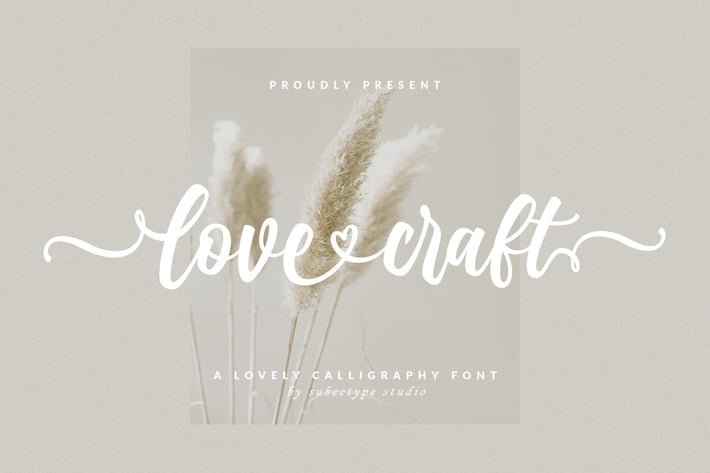
Love Craft - A Lovely Font
Love Craft is a Chic and Lovely Calligraphy font, described by an girly touch, perfect for your favorite projects.
Fall in love with its incredibly distinct and timeless style and use it to create spectacular designs!
This font is perfect for Wedding font, Fashion font, Invitation font, t-shirts font, websites font, Business font, Quotes font,
headline font, branding font, advertising font, Signature Font, Social Media Font, Stationary Font, Product Packaging Font,
Label Fonts, Photography signature, evnt font, poster font, party font, and various print and digital media with stylish touch.